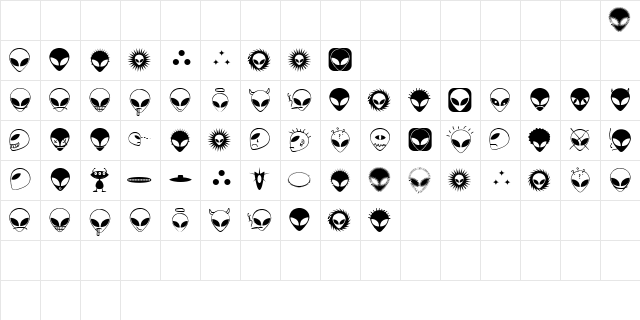
Alienator Regular Free Font
Alienator Regular
Design Context for Alienator
Alienator is a composed and adaptable typeface that performs quietly and consistently across a wide range of design contexts.